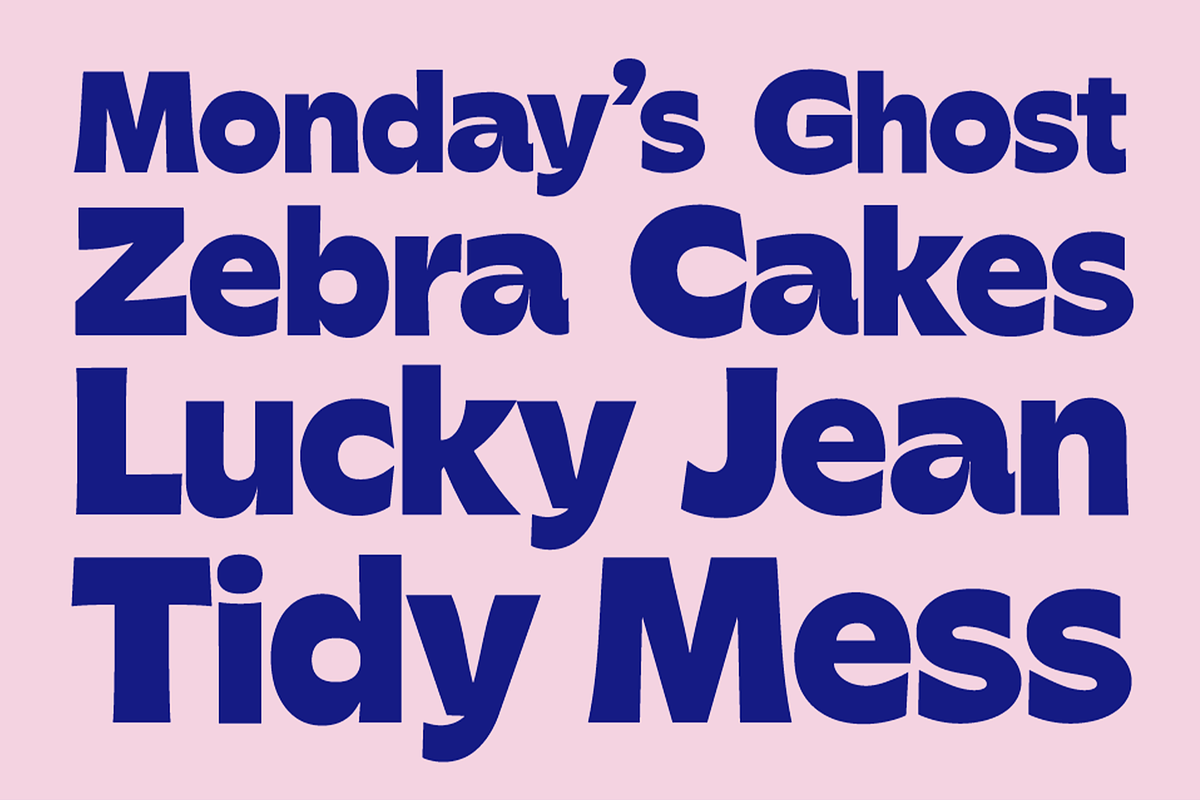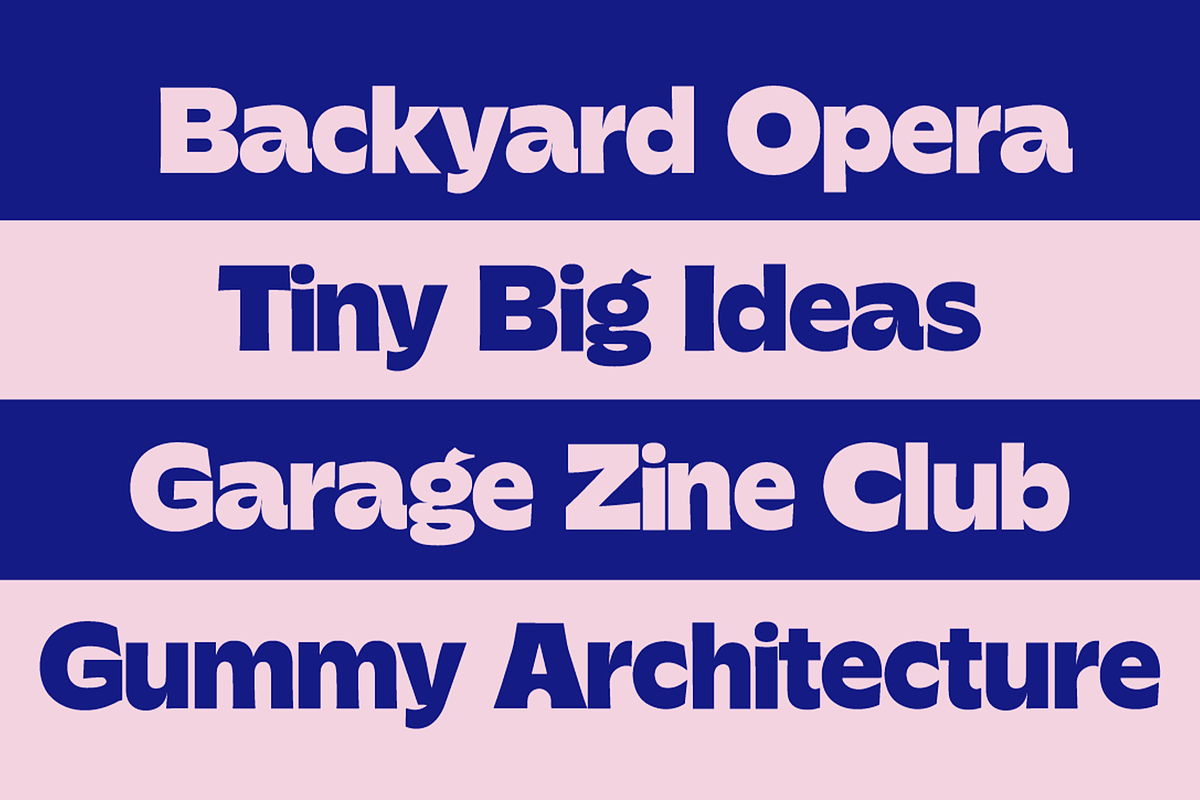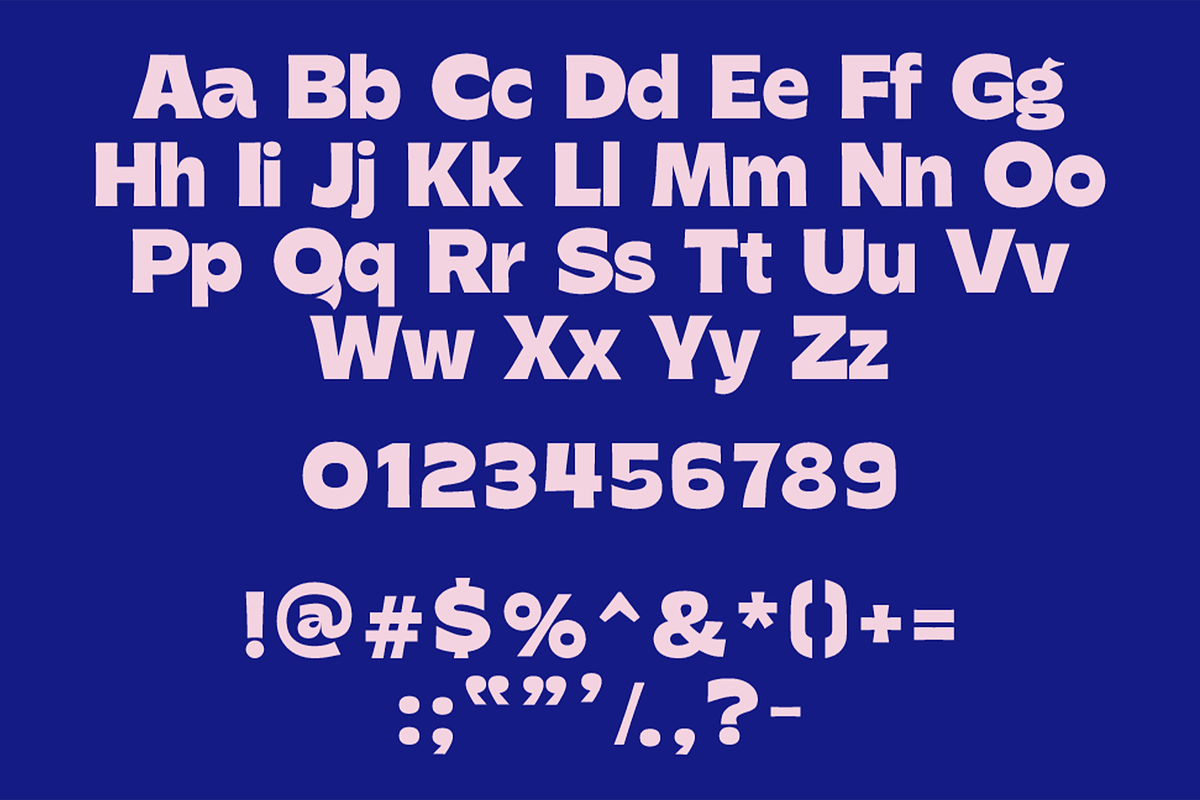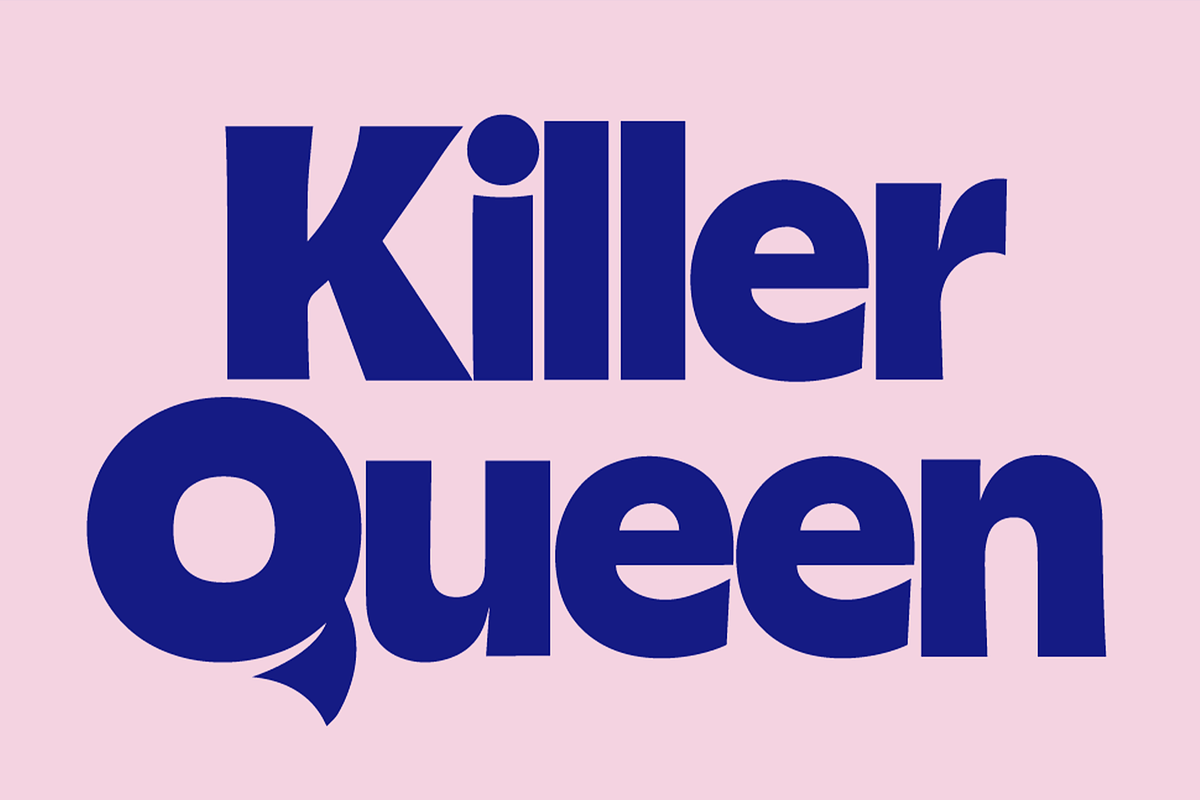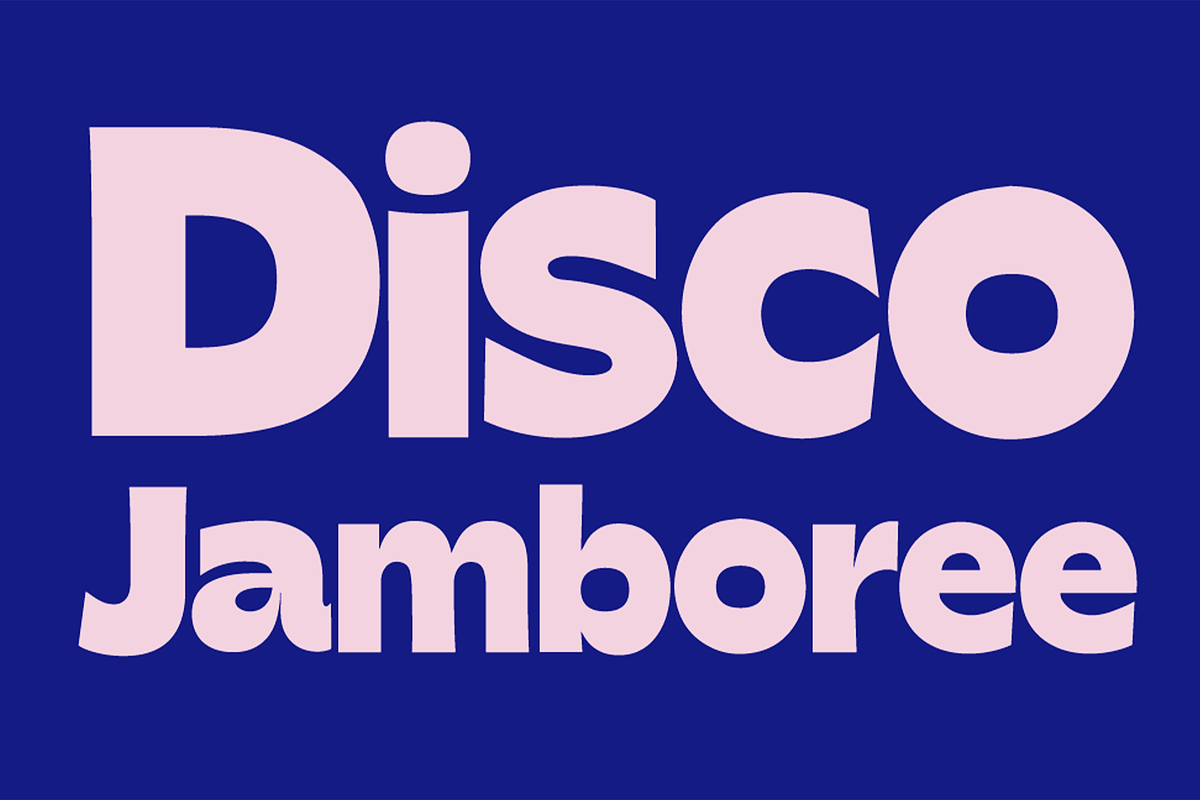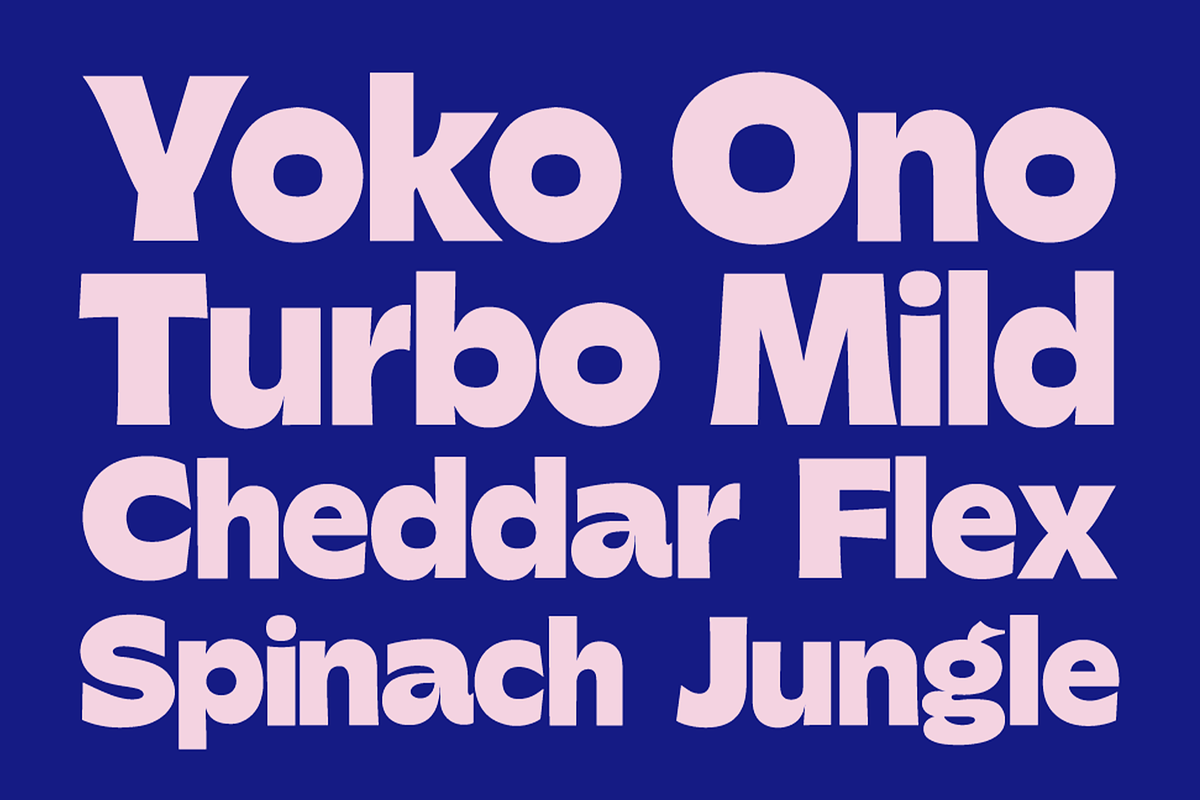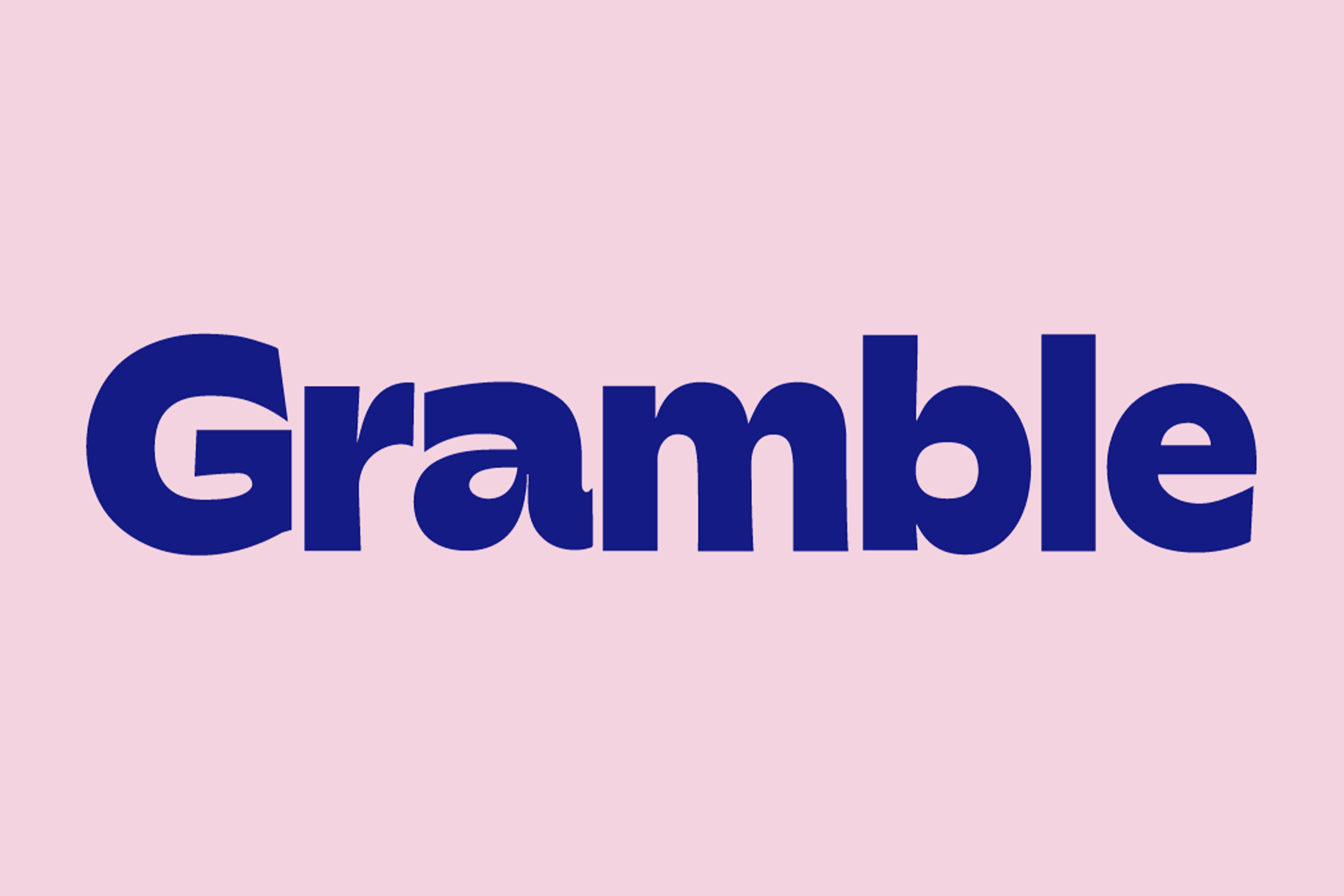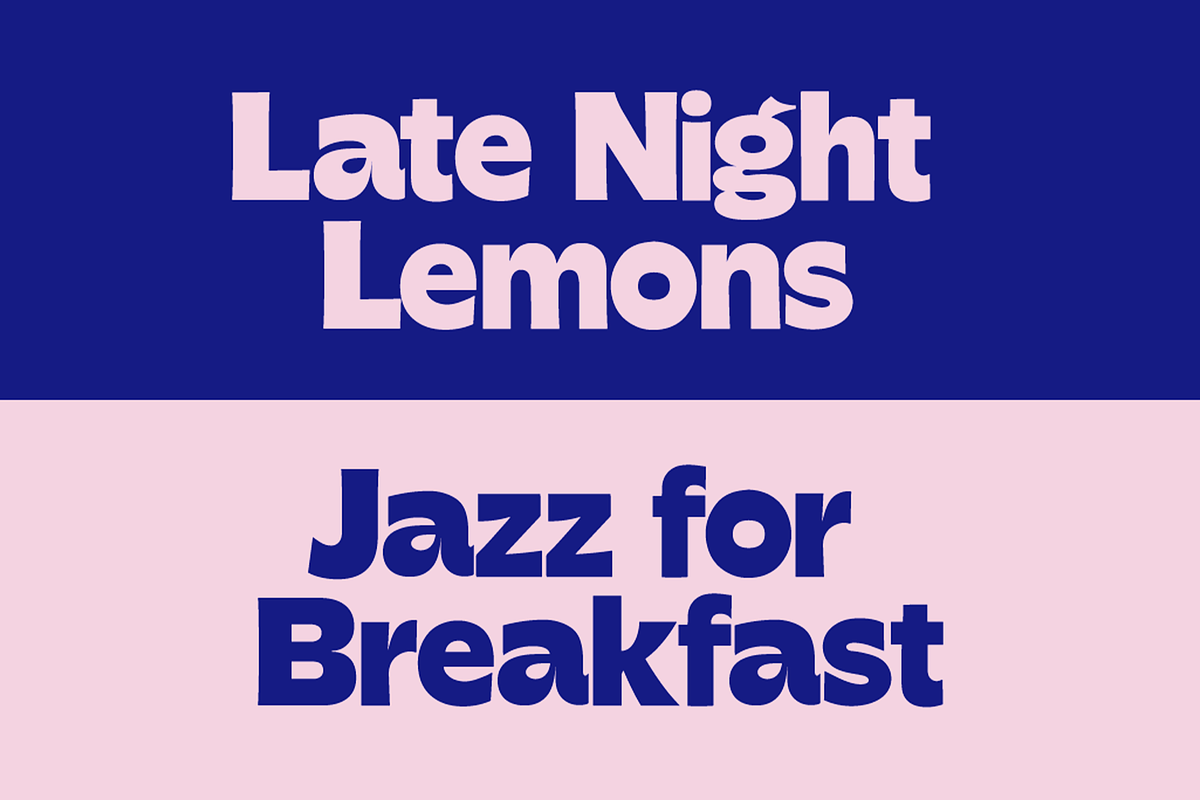
Gramble - display font
Gramble is a bold, lovable display typeface that’s equal parts retro charm and modern fun. With soft curves, heavy weight, and a touch of quirky attitude, Gramble brings big personality to every project — from indie packaging to playful headlines and statement logos.
Whether you're designing a brand for a boutique bakery, crafting a campaign for a kids’ product, or just want your words to feel friendlier and fuller, Gramble has your back. It’s designed to grab attention without yelling, making it perfect for creatives who like their type loud, but likeable.